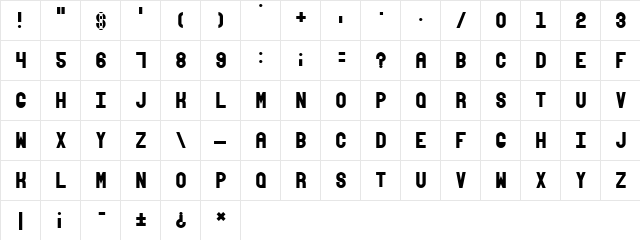
absender regular
| Foundry | Nick Polifroni |
| Designer | Nick Polifroni |
Design Context for absender Typeface
absender is a composed and adaptable typeface that performs quietly and consistently across a wide range of design contexts.